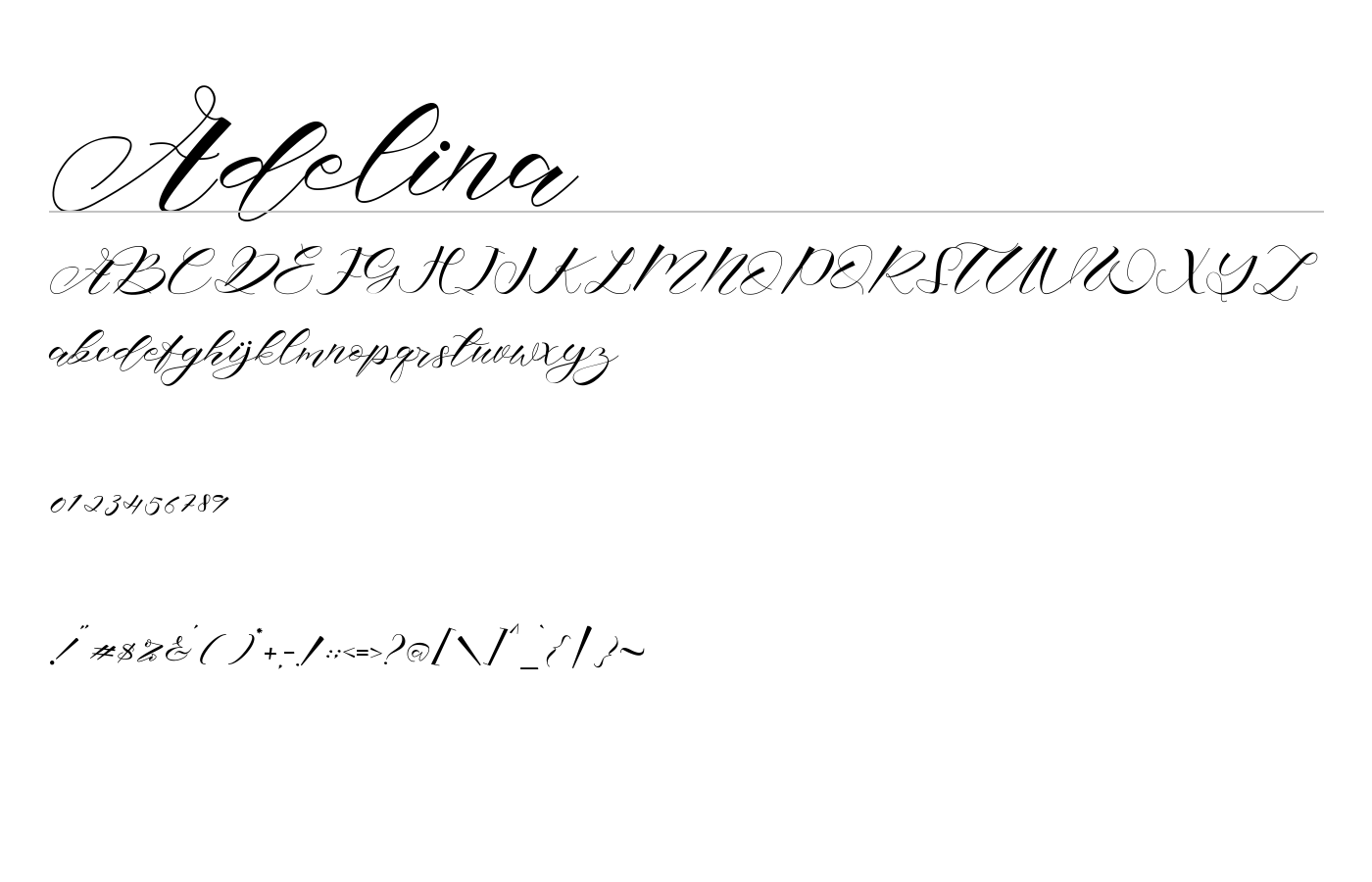
Adelina is an elegant script font characterized by its fine, flowing strokes and graceful swashes that lend it a sophisticated, handwritten feel. Its delicate weight and fluid letterforms make it ideal for luxury branding, wedding invitations, and any design needing a refined, stylish touch. With its intricate curves and airy spacing, Adelina brings a timeless charm and romantic personality to headlines and decorative text.
Adelina Font